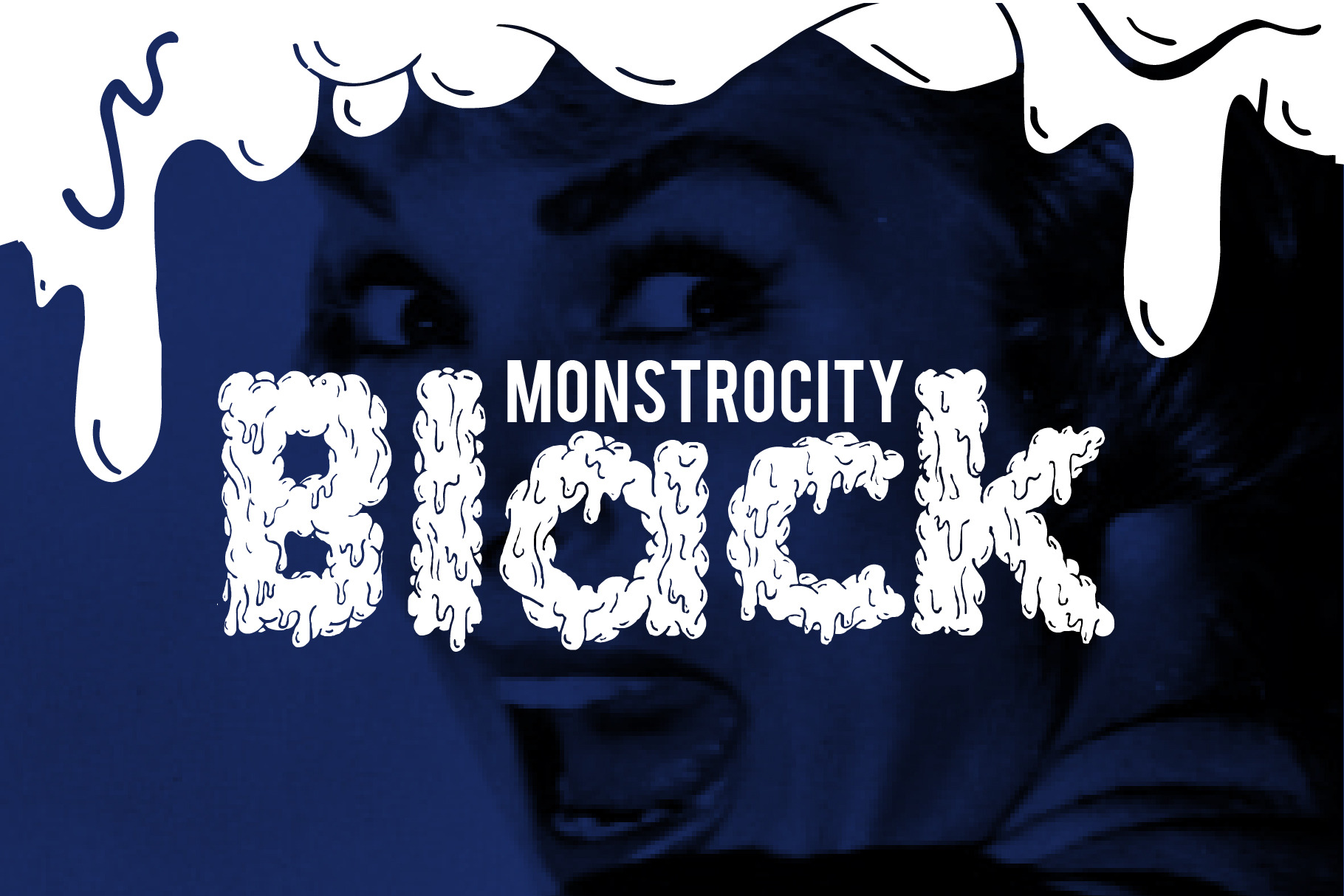
Monstrocity Black - Typeface
Monstrocity Black is a decorative font, versatile and extremely easy to use! This font can be used in a variety of ways: to make designs look fluffy, or to give your work a grotesquely grunge style. This font excels as a headline or in large formats due to its ornamental nature.